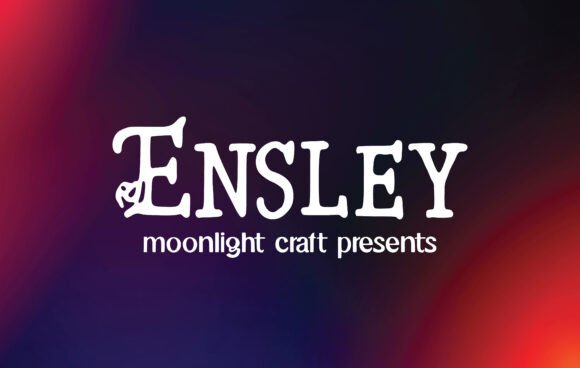
Introducing Ensley Font: Elevate Your Creative Projects with a Lovely Handwritten Style
In the world of typography, a font can make all the difference in bringing your creative ideas to life. Ensley Font is a stunning handwritten font that has the potential to take your designs to new heights. With its unique and beautiful style, Ensley is the perfect choice for creating eye-catching logos, branding, and quotes that capture the attention of your audience.
What Makes Ensley Font Special?
- Handwritten Style: Ensley Font boasts a lovely handwritten style that adds a personal touch to your designs. Its elegant and fluid lines make it perfect for creating sophisticated and eye-catching text.
- Unique and Creative: Ensley Font is designed to help you stand out from the crowd. Its distinctive style ensures that your designs are memorable and leave a lasting impression on your audience.
- Versatile: Ensley Font is suitable for a wide range of creative projects, from logos and branding to quotes and social media graphics.
- Easy to Read: Despite its creative and artistic style, Ensley Font is easy to read, making it perfect for body text and captions.
10 Creative Ways to Use Ensley Font
- Logo Design: Create a stunning logo for your brand using Ensley Font. Its unique style ensures that your logo stands out and is memorable.
- Branding: Use Ensley Font to create a consistent brand identity across all your marketing materials, from business cards to brochures.
- Quotes and Social Media Graphics: Add a touch of elegance to your quotes and social media graphics with Ensley Font. Its stylish and creative look is sure to grab the attention of your followers.
- Wedding and Event Invitations: Make your wedding or event invitations special with Ensley Font. Its beautiful handwritten style adds a touch of romance and sophistication.
- Packaging Design: Use Ensley Font to create eye-catching packaging designs that stand out on store shelves.
- Advertising: Create effective and memorable ads using Ensley Font. Its unique style ensures that your ads grab the attention of your target audience.
- Web Design: Use Ensley Font to create a beautiful and elegant website that reflects your brand’s personality.
- Print Design: From brochures to posters, Ensley Font is perfect for a wide range of print design projects.
- Digital Art: Add a touch of creativity to your digital art with Ensley Font. Its unique style ensures that your art stands out.
- Typography: Experiment with Ensley Font to create stunning typographic designs that showcase your creativity.
Tips and Tricks for Using Ensley Font
- Experiment with Colors: Try out different colors to find the perfect match for your Ensley Font designs.
- Play with Font Sizes: Experiment with different font sizes to create visual hierarchy and add emphasis to your text.
- Use it with Images: Combine Ensley Font with images to create stunning graphics that tell a story.
- Keep it Simple: Don’t overcomplicate your designs. Keep it simple and let Ensley Font shine.
Ensley Font is a beautiful and versatile handwritten font that can elevate your creative projects to new heights. With its unique style and ease of use, it’s perfect for a wide range of design applications. Download Ensley Font today and bring your creative ideas to life!